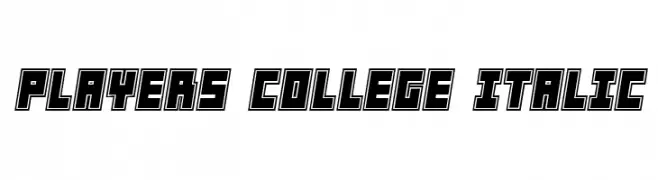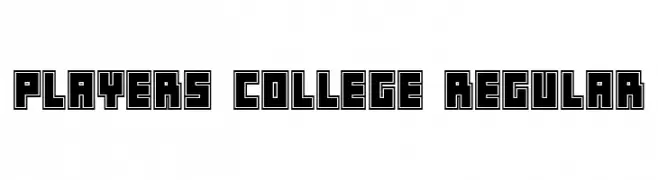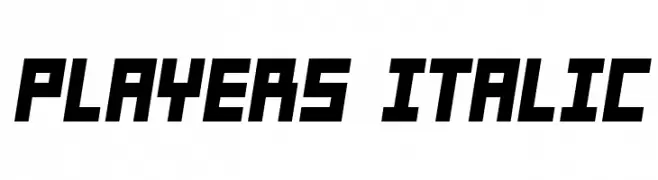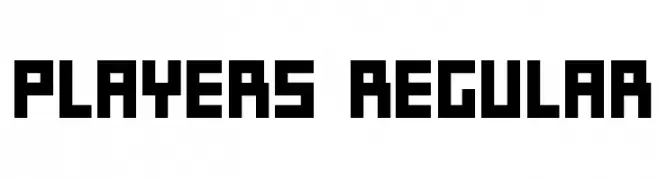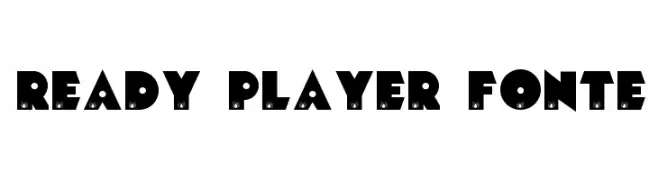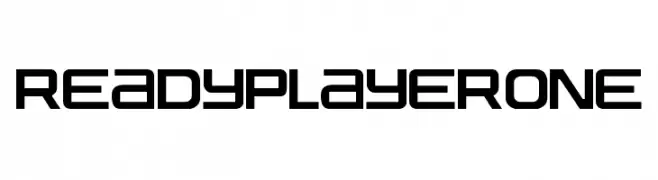
A futuristic, geometric font with bold, angular letterforms and a tech-inspired aesthetic.
( READY PLAYER FONTE )
A bold, geometric font with a futuristic and playful design, featuring unique cutouts and patterns.
( NONPLAYER )
A bold, geometric font with a digital, futuristic style.
A bold, geometric font with a blocky, digital appearance.
A geometric, tech-inspired font with linear and angular characters.
A bold, italicized font with a geometric and sporty design.
Bold, italic, athletic-style font with a blocky, geometric design.
A bold, geometric font with a strong, collegiate style.
A bold, italicized font with a geometric and modern style.